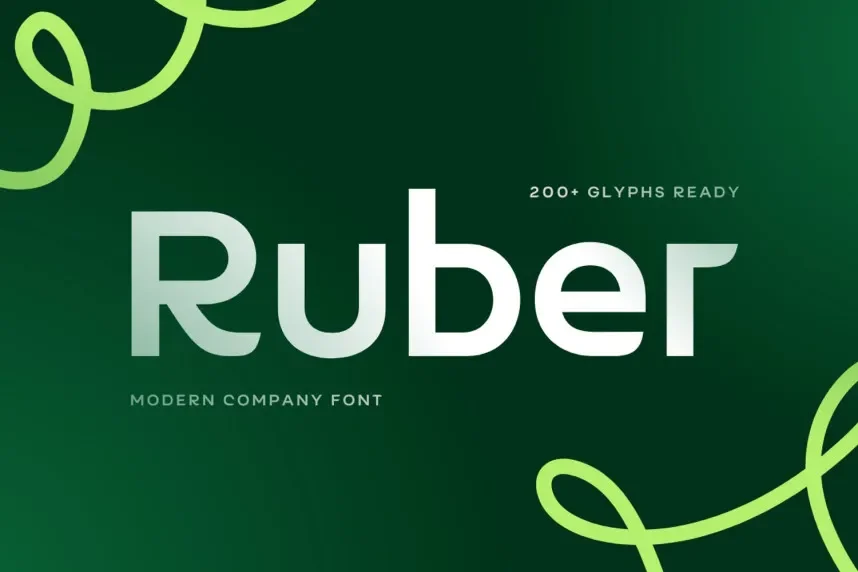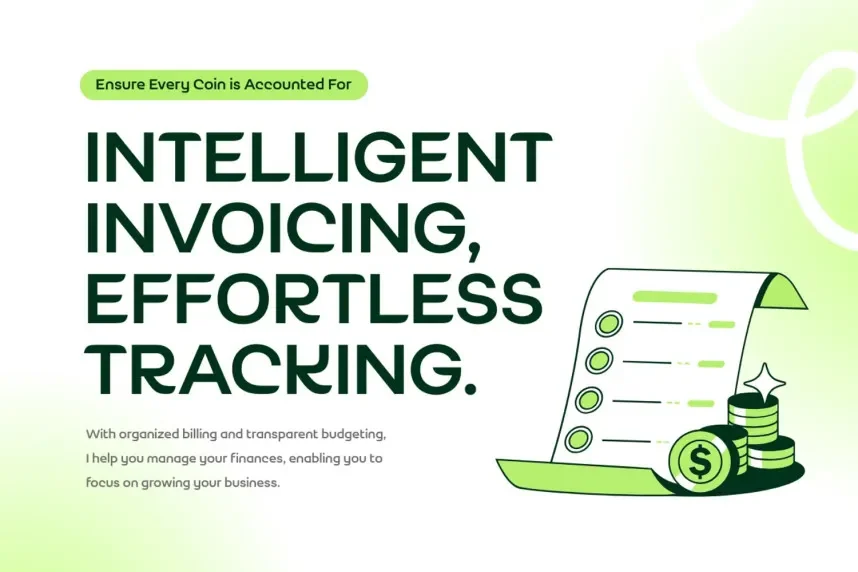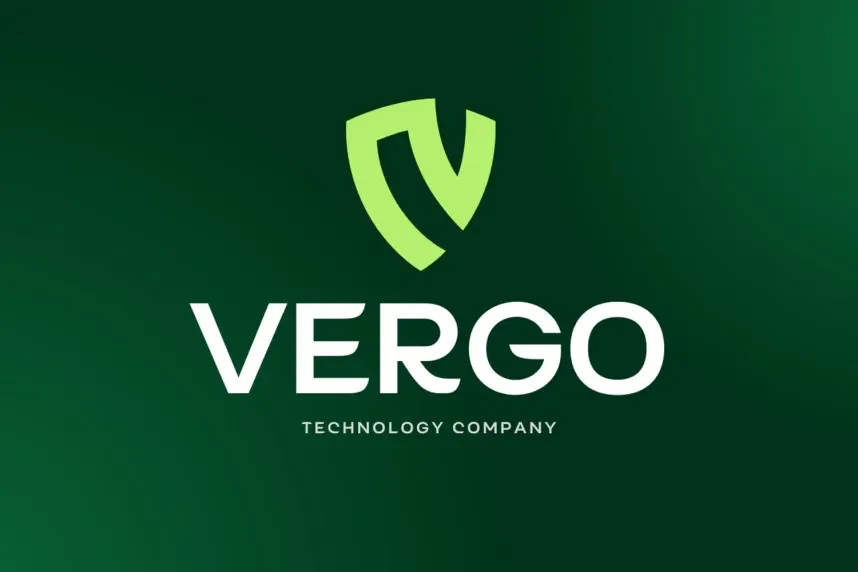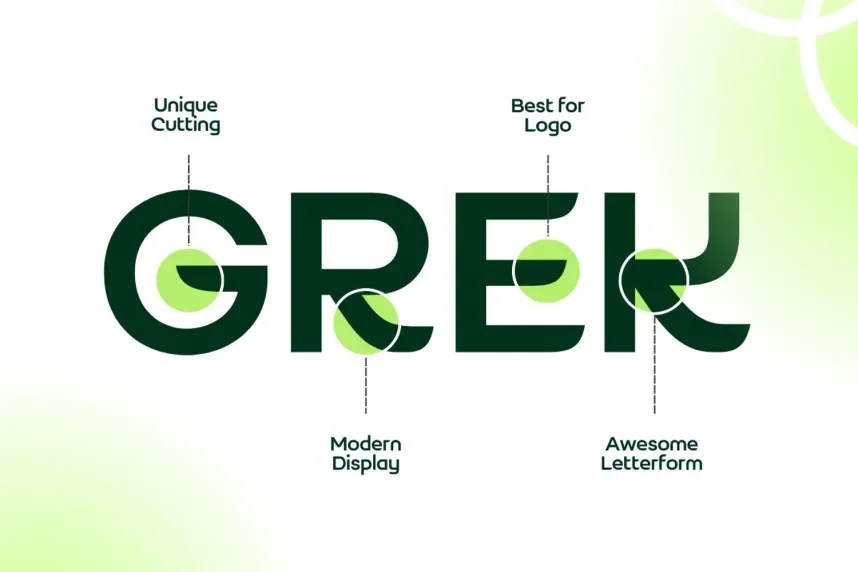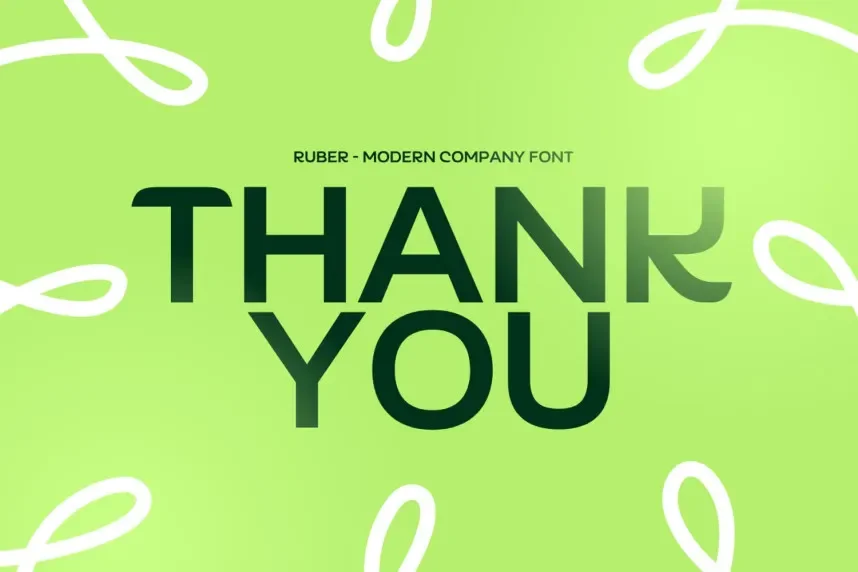
Ruber Font is a display typeface that addresses visibility and brand identity challenges in bold, attention-grabbing layouts. Its thick, structured strokes ensure readability at large sizes without losing character.
The font features geometric shapes, rounded terminals, and slight condensation in letterforms. Alternate characters and weights provide versatility for headlines, logos, posters, and digital marketing graphics, making it suitable for both modern and playful designs.